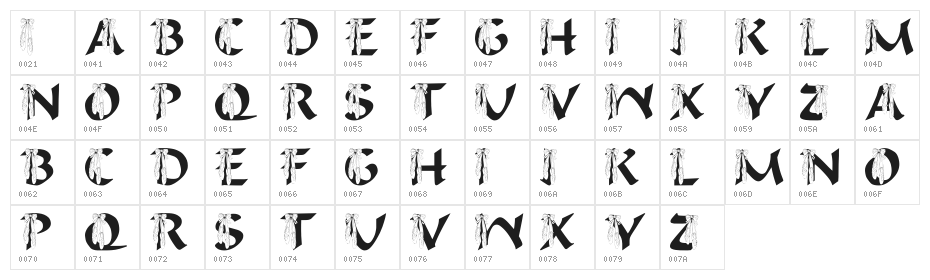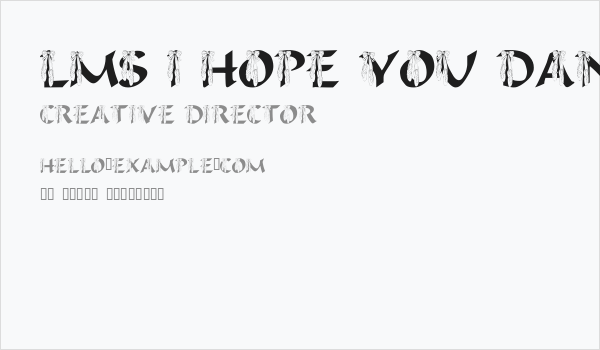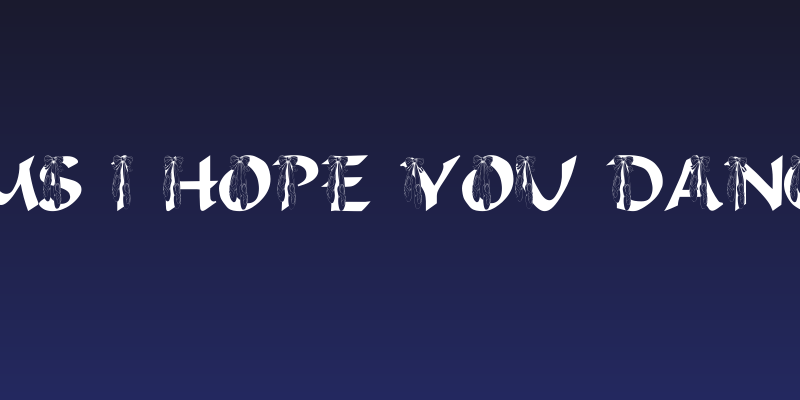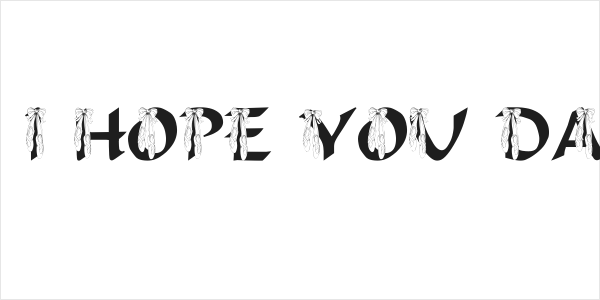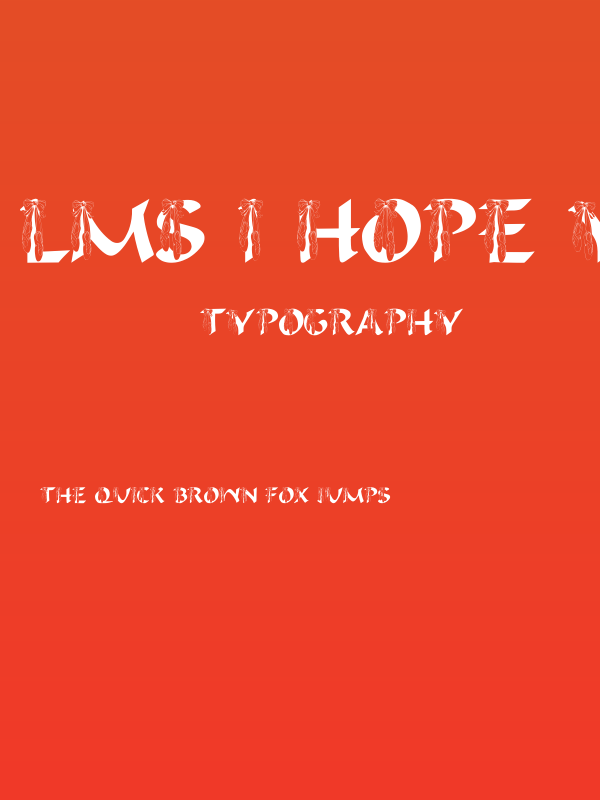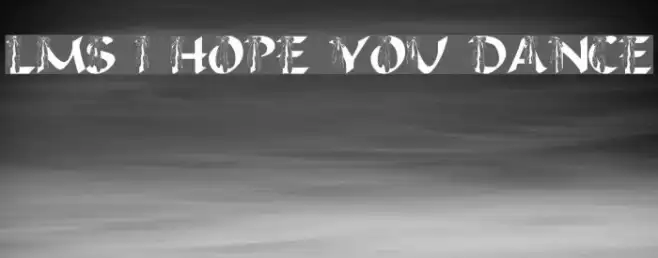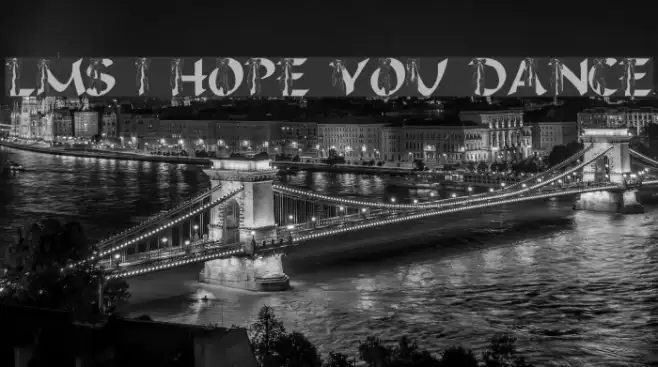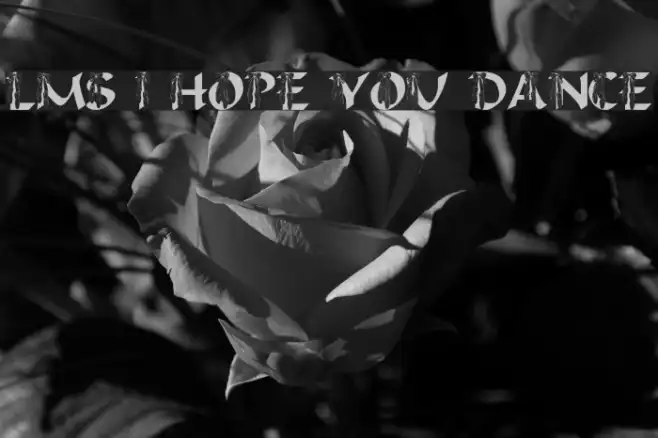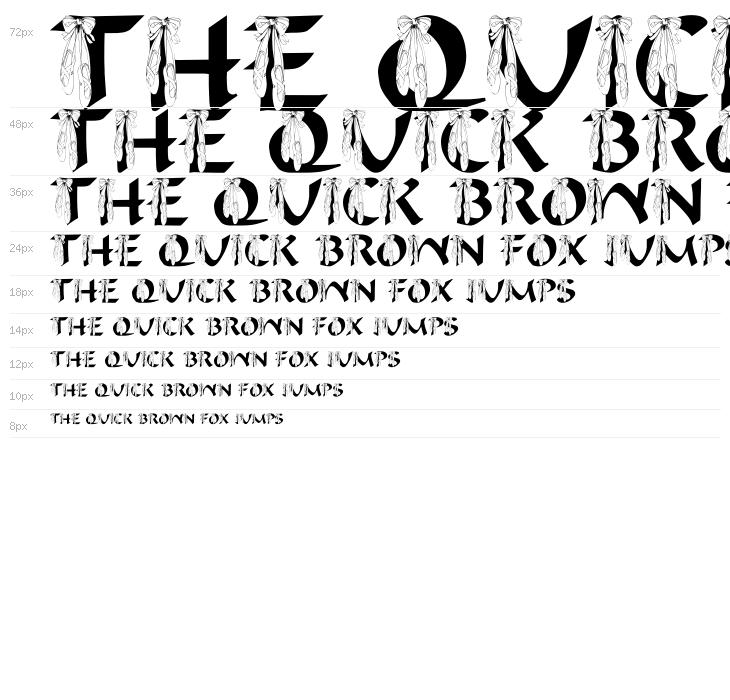
LMS I Hope You Dance Font
LMS I Hope You Dance Description
This font features a unique and artistic design, incorporating intricate details within each character. The letters are adorned with decorative elements that resemble delicate feathers or leaves, giving the font a whimsical and elegant appearance. The bold strokes contrast with the intricate details, creating a striking visual effect. The overall style is both decorative and modern, making it suitable for creative and artistic projects. The font's distinctive look makes it stand out, ideal for use in designs that require a touch of elegance and creativity.
| Proposed Projects | Ideal for wedding invitations, artistic posters, branding for fashion or beauty products, and any project requiring a touch of elegance and creativity. |